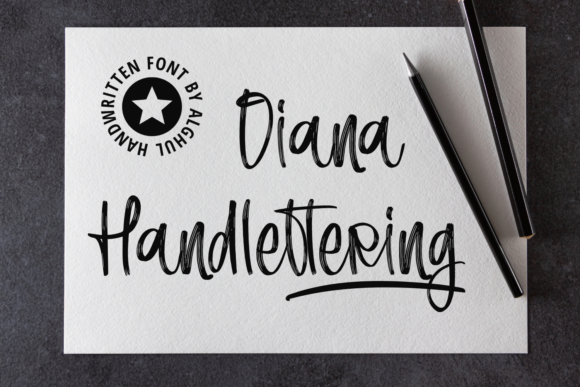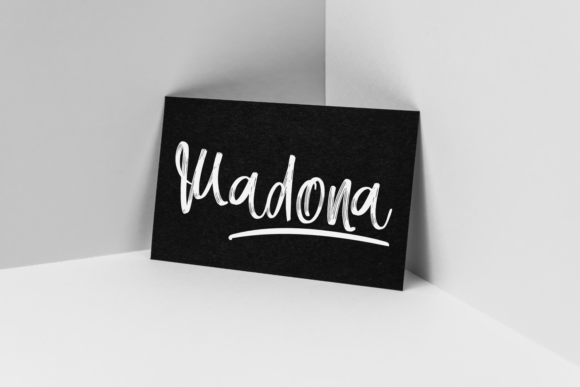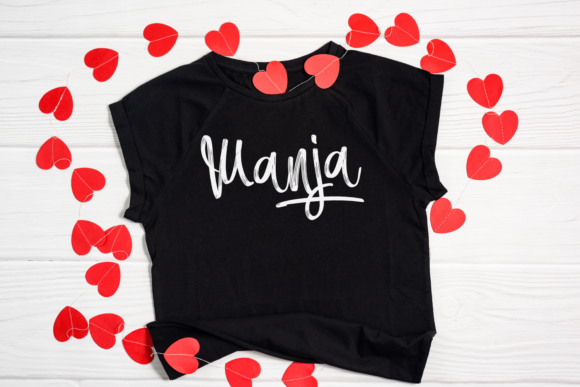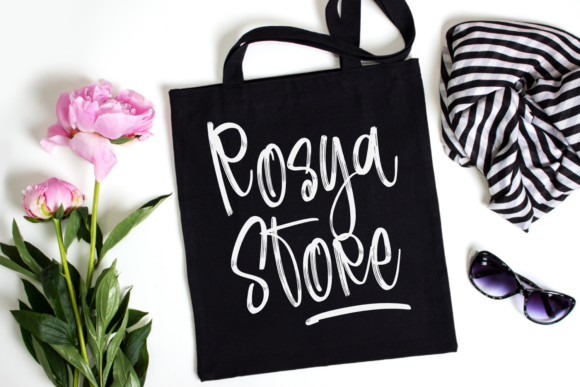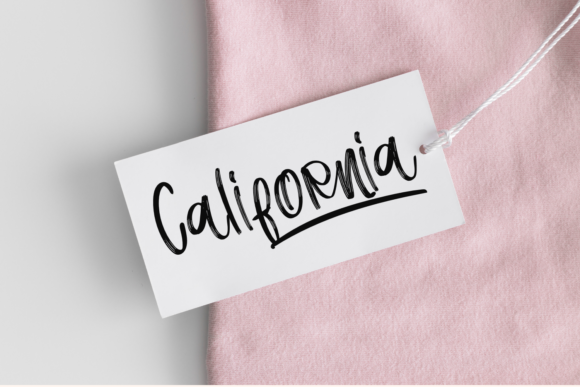
Diana Handlettering Font
About Diana Handlettering Font
Diana Handlettering is a lovely and timeless brush handwritten font. It is the best choice for creating eye catching logos, branding and quotes. Every letter has a unique and beautiful touch, which will make your design come alive!